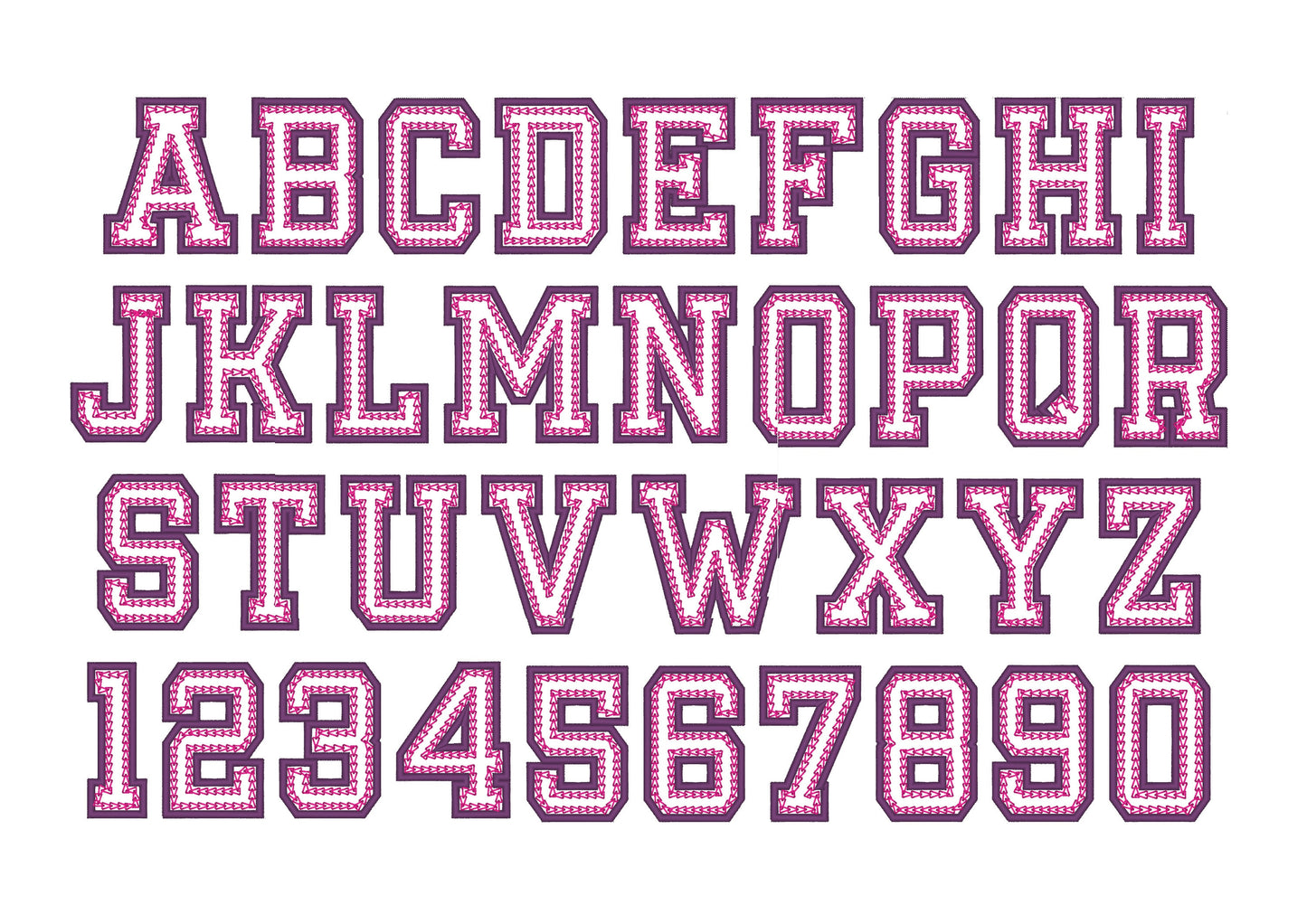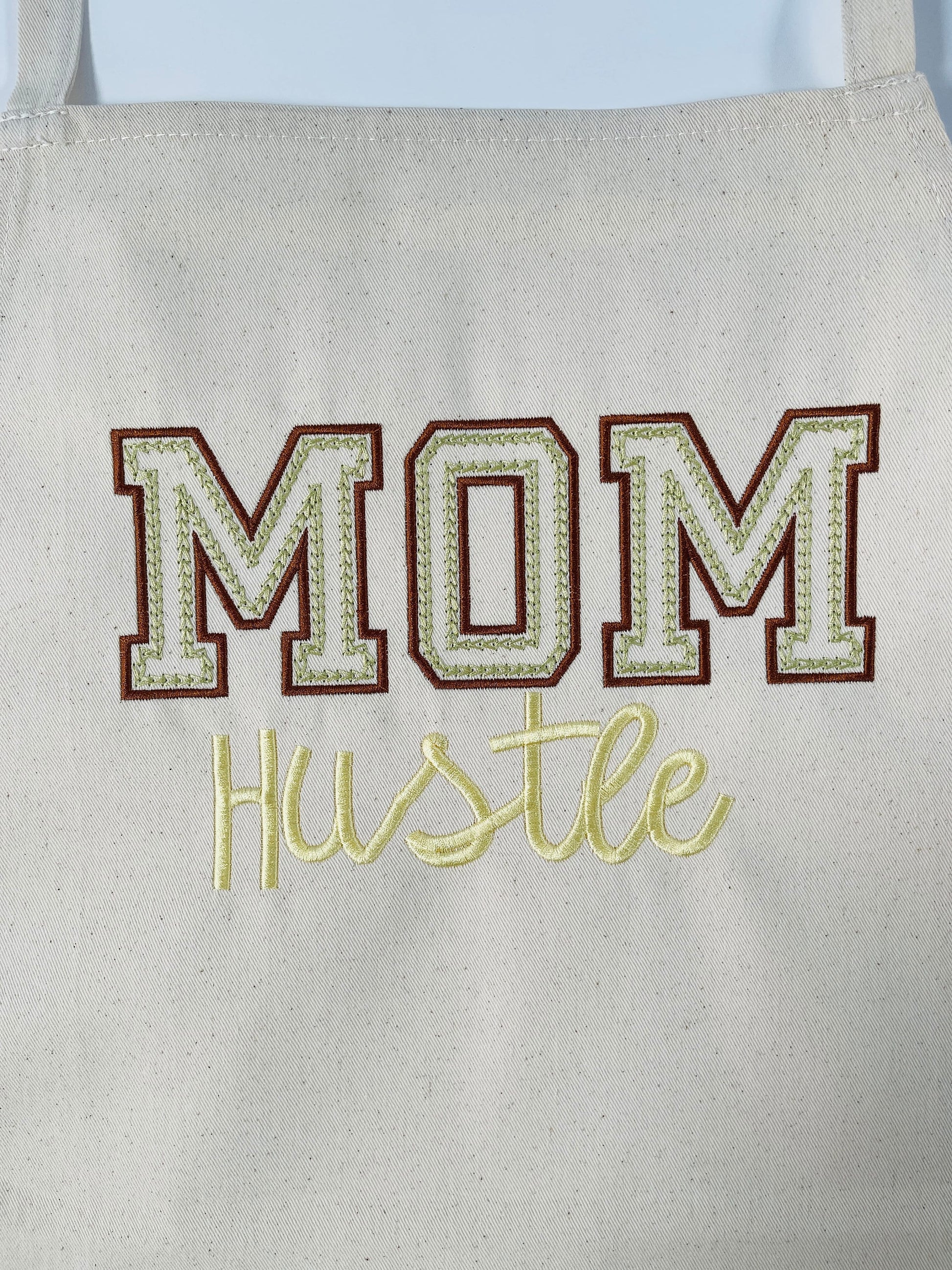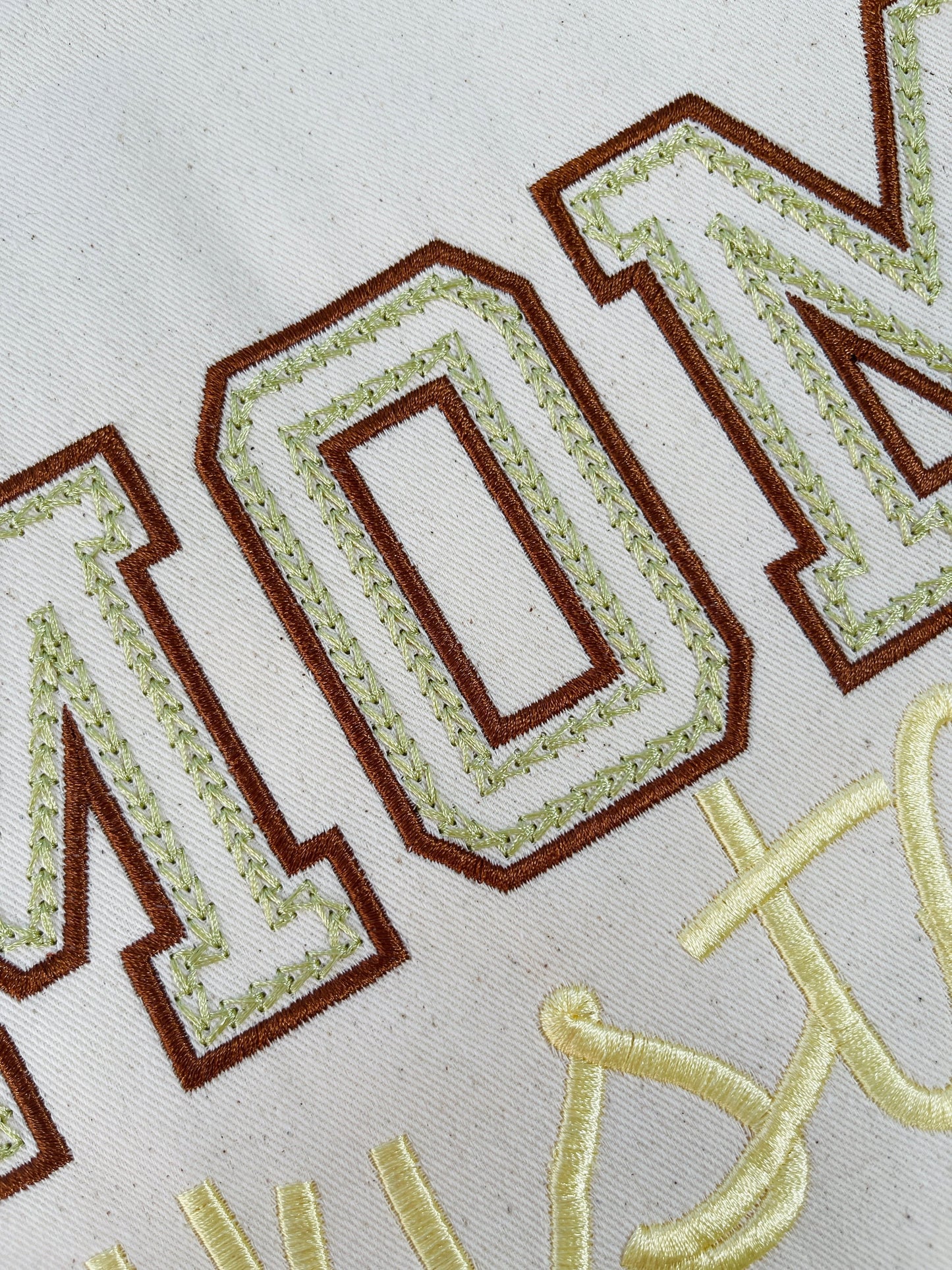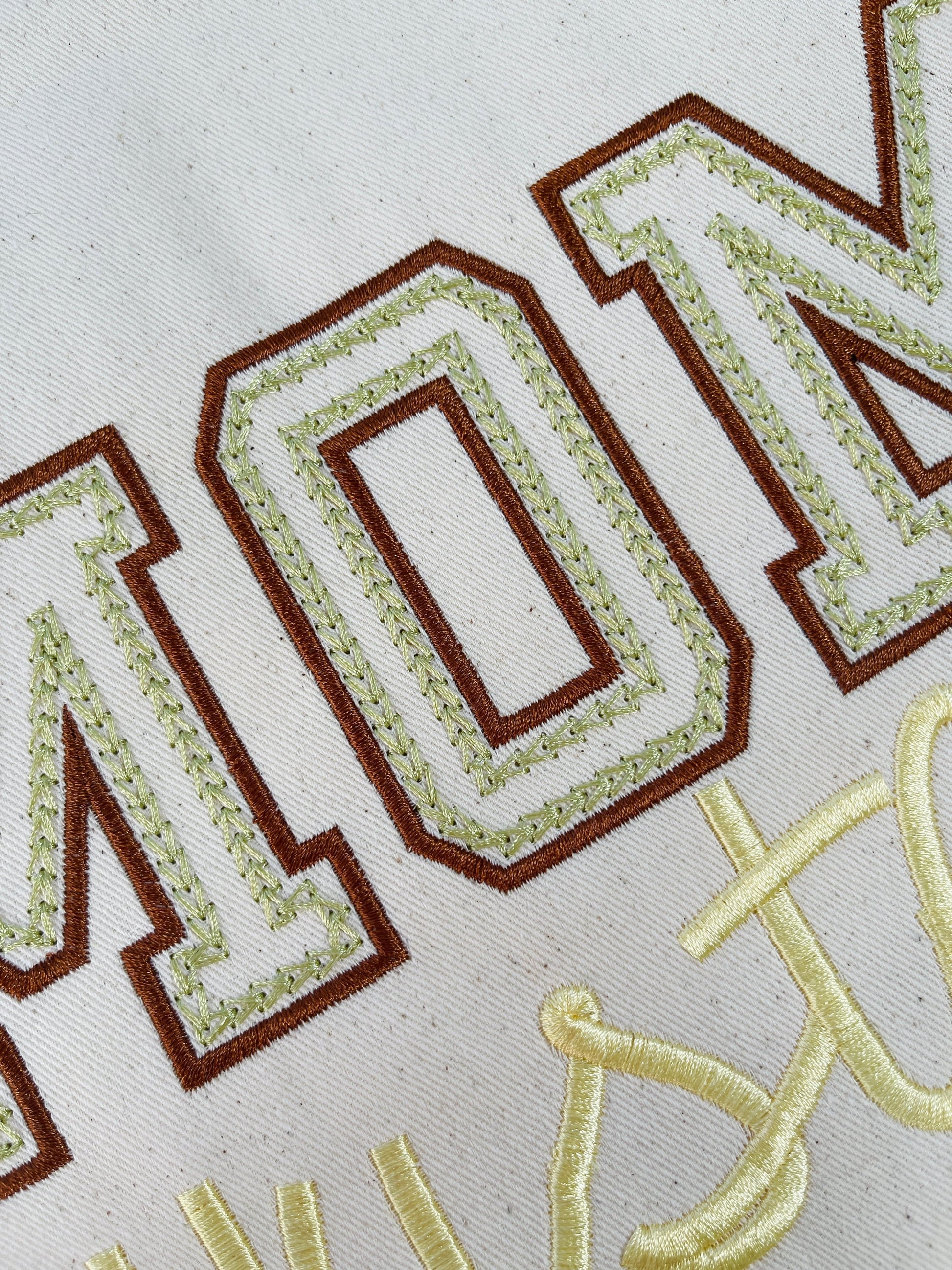
Or click to open the linkA varsity sport outline font with two outlines in chain and satin stitch. Made for team shirts, sweatshirts, jackets and bags.
Uppercase letters A to Z and numbers 0 to 9. Six sizes: 2.3, 3.1, 3.9, 4.7, 5.4 and 6.2 inches.